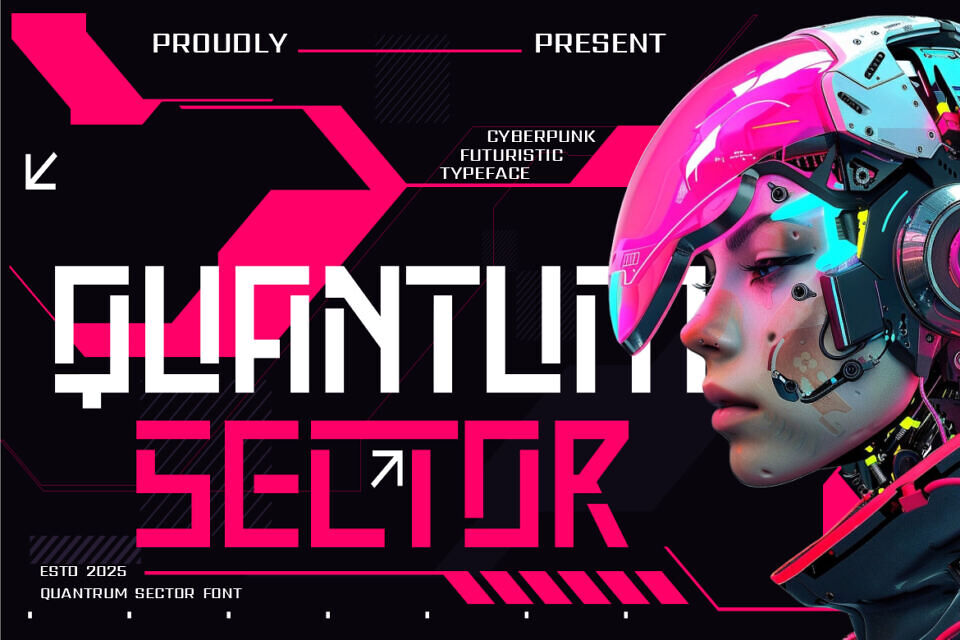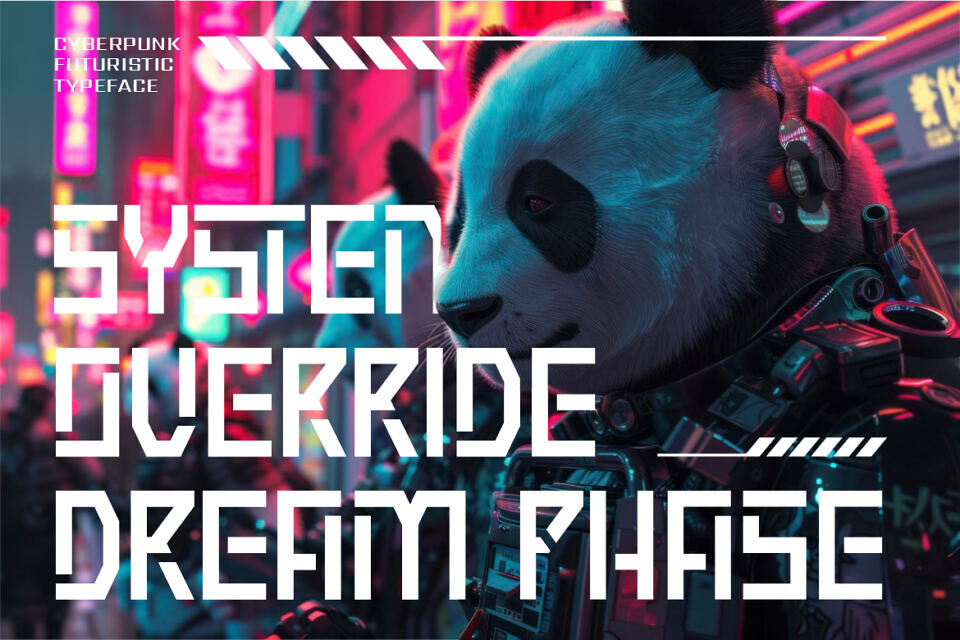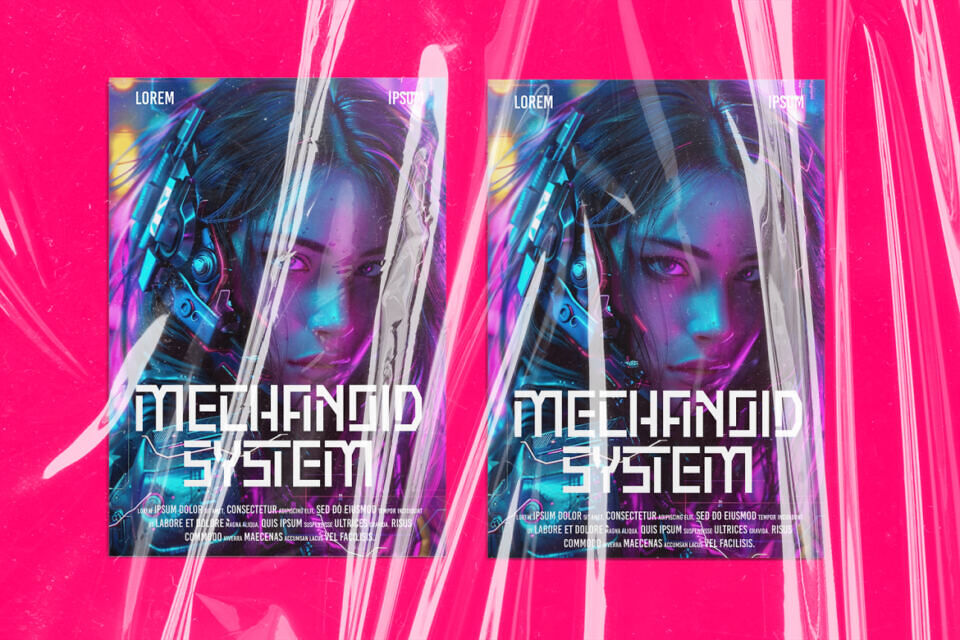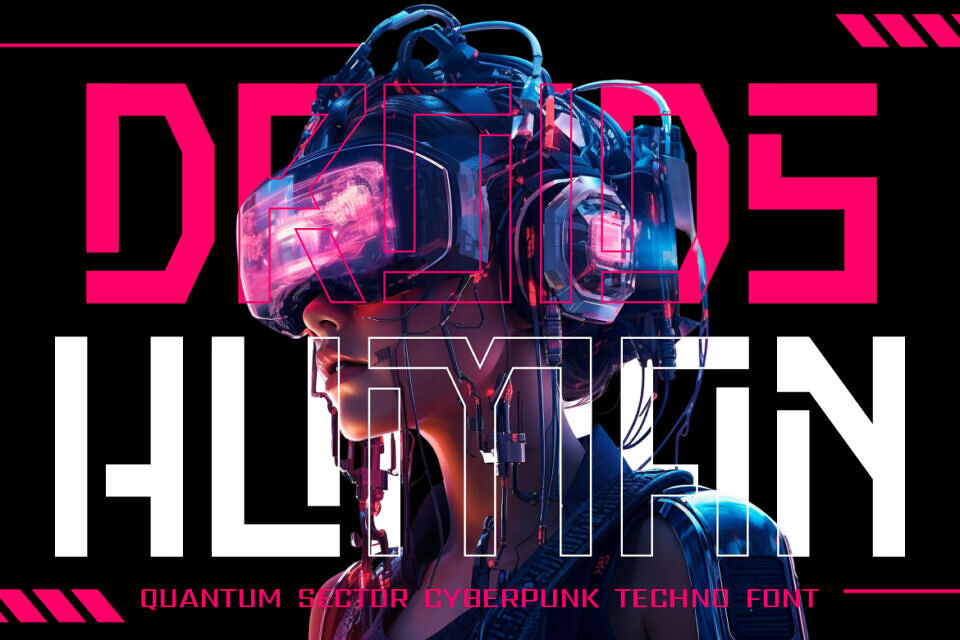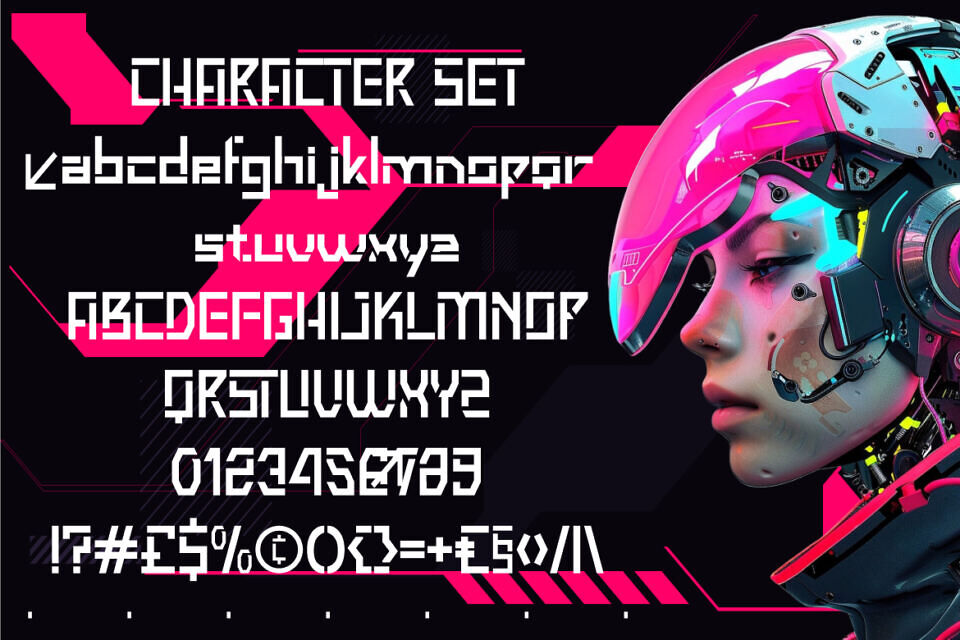
Quantum Sector Font
Quantum Sector is a cyberpunk techno font crafted for digital pioneers, esports champions, and futuristic branding. Its letterforms feature bold, angular strokes, pixel-inspired edges, and modular shapes that evoke the feeling of high-tech circuitry and neon-soaked cityscapes.
The font’s sharp symmetry and square-based proportions create a bold visual presence—perfect for high-stakes headlines and next-gen interfaces. This typeface shines in digital environments and cyber-themed applications. Ideal for logos, sci-fi posters, VR packaging, gaming UI, and cutting-edge tech branding